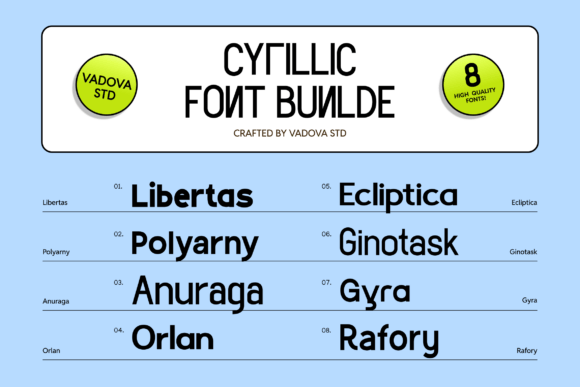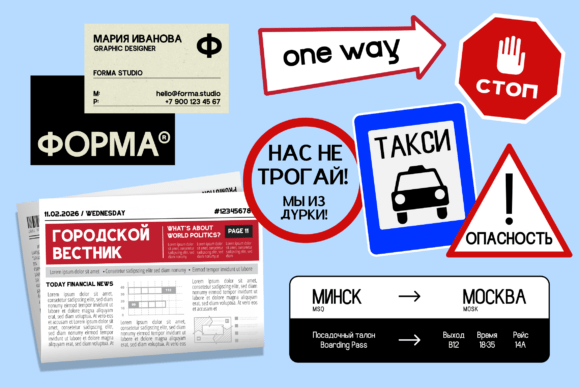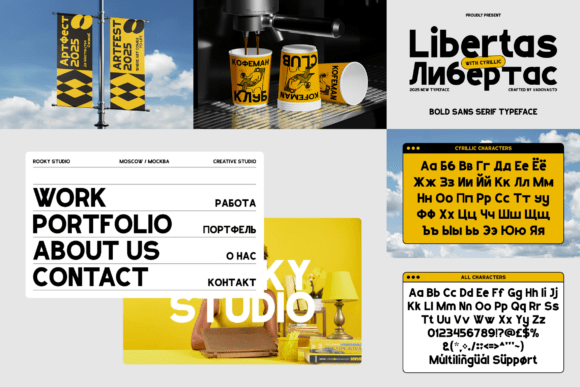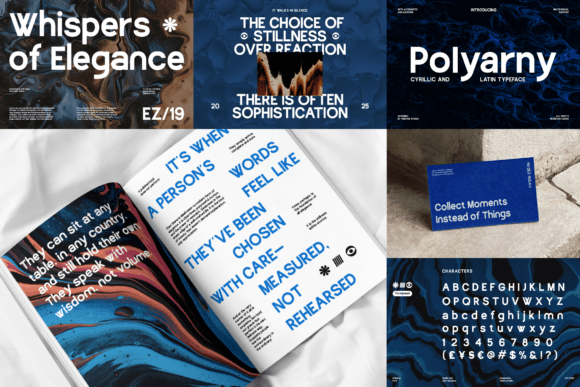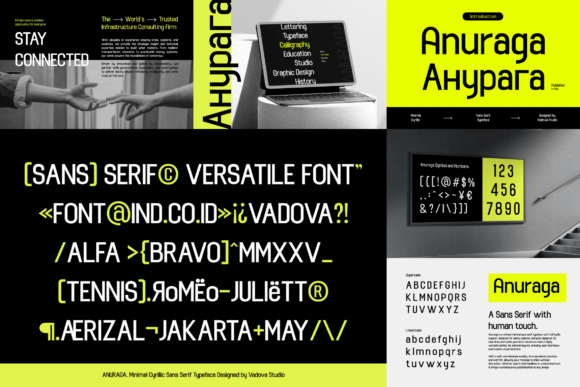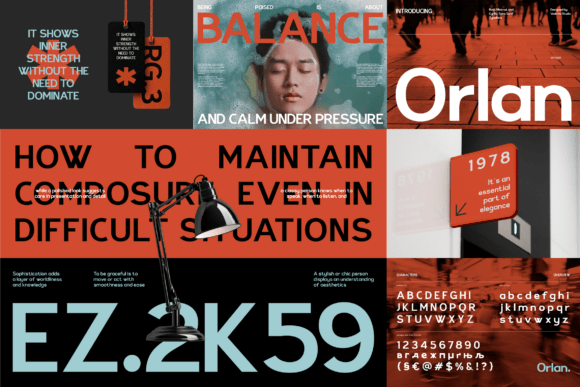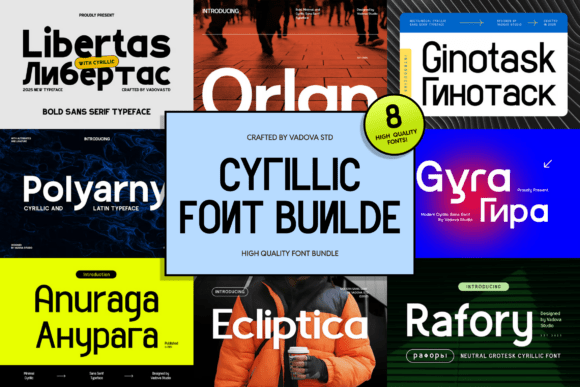
The Power of Cyrillic Fonts: Elevate Your Designs with the Cyrillic Font Bundle
As a designer, you understand the importance of typography in creating visually stunning and effective designs. When it comes to designing for Russian-speaking audiences, multilingual branding, or international projects, having the right font is crucial. This is where the Cyrillic Font Bundle comes in – a versatile type collection designed to support modern designs that require strong, clear, and professional Cyrillic typography.
What is the Cyrillic Font Bundle?
The Cyrillic Font Bundle is a carefully curated collection of typefaces that combine contemporary styles with functional readability. This bundle delivers clean letterforms suitable for both creative and practical visual communication. Each typeface is crafted to perform well in display and branding use, offering balanced proportions, distinctive character, and reliable legibility.
Key Features of the Cyrillic Font Bundle
- Contemporary styles: The Cyrillic Font Bundle features modern and sleek designs that will elevate your projects and give them a professional look.
- Functional readability: The typefaces in this bundle are designed to be highly legible, making them perfect for use in a variety of applications, from corporate layouts to digital interfaces.
- Balanced proportions: Each typeface has been carefully crafted to ensure that the letters are balanced and harmonious, creating a visually appealing effect.
- Distinctive character: The Cyrillic Font Bundle offers a range of unique and distinctive characters that will help your designs stand out from the crowd.
- Reliable legibility: Whether you’re designing for display or branding use, the typefaces in this bundle are designed to be highly legible and easy to read.
Use Cases for the Cyrillic Font Bundle
The Cyrillic Font Bundle is perfect for a wide range of design applications, including:
- Corporate layouts: Use the Cyrillic Font Bundle to create professional-looking corporate materials, such as brochures, flyers, and business cards.
- Editorial design: The typefaces in this bundle are ideal for use in editorial design, including magazines, newspapers, and books.
- Signage: The Cyrillic Font Bundle is perfect for creating eye-catching signage that is easy to read and visually appealing.
- Transportation systems: Use the typefaces in this bundle to create clear and legible signage for transportation systems, such as airports, train stations, and bus terminals.
- Digital interfaces: The Cyrillic Font Bundle is designed to work well in digital interfaces, including websites, apps, and software.
Benefits of Using the Cyrillic Font Bundle
By using the Cyrillic Font Bundle, you’ll enjoy a range of benefits, including:
- Consistency: The typefaces in this bundle are designed to work well together, ensuring consistency across your designs.
- Flexibility: The Cyrillic Font Bundle is versatile and can be used in a wide range of design applications.
- Professionalism: The typefaces in this bundle are designed to look professional and modern, elevating your designs and giving them a polished finish.
- Time-saving: With the Cyrillic Font Bundle, you’ll have access to a range of high-quality typefaces, saving you time and effort in your design work.
Who is the Cyrillic Font Bundle for?
The Cyrillic Font Bundle is perfect for:
- Graphic designers: If you’re a graphic designer looking for high-quality Cyrillic typefaces, this bundle is a must-have.
- UI/UX designers: The typefaces in this bundle are designed to work well in digital interfaces, making them perfect for UI/UX designers.
- Branding specialists: If you’re a branding specialist looking for a versatile and professional typeface, the Cyrillic Font Bundle is an excellent choice.
- Crafters and DIY enthusiasts: The Cyrillic Font Bundle is also perfect for crafters and DIY enthusiasts who want to add a professional touch to their projects.
In conclusion, the Cyrillic Font Bundle is a versatile and professional type collection that is perfect for designers, crafters, and DIY enthusiasts. With its contemporary styles, functional readability, and balanced proportions, this bundle delivers clean letterforms suitable for both creative and practical visual communication. Whether you’re designing for Russian-speaking audiences, multilingual branding, or international projects, the Cyrillic Font Bundle provides a solid and flexible Cyrillic typographic foundation.